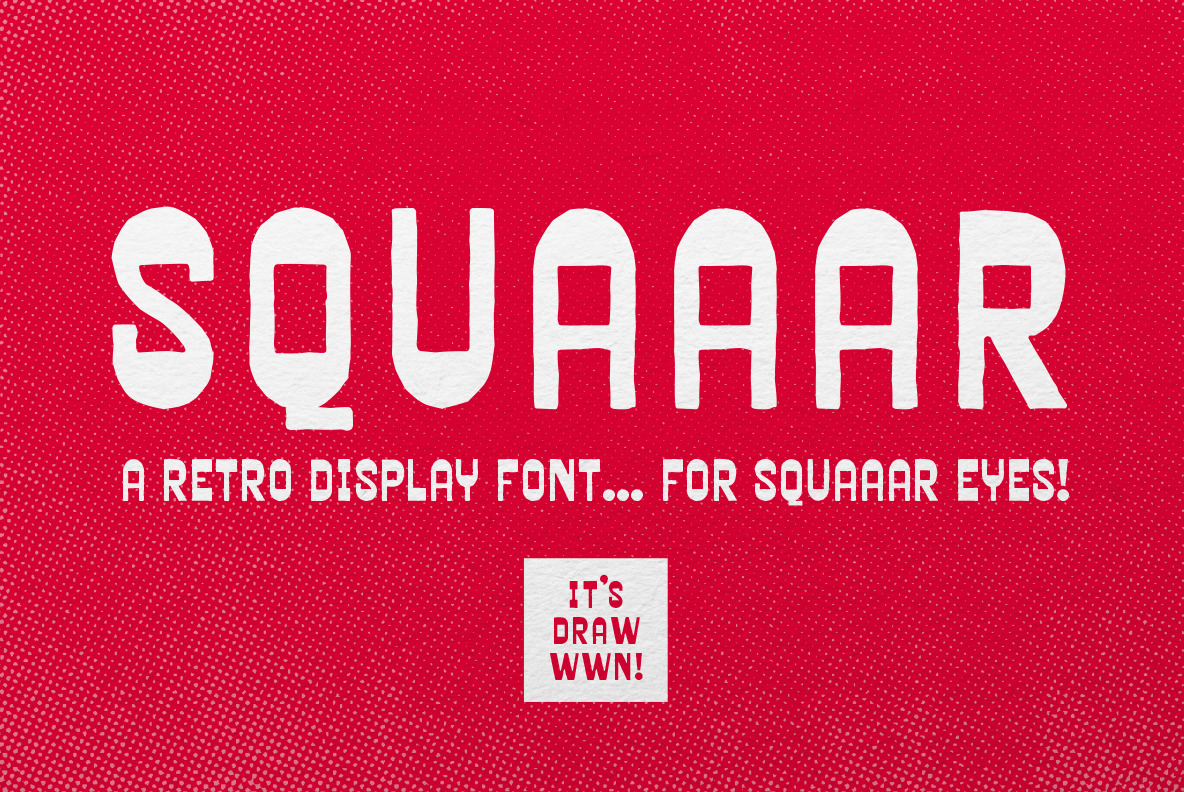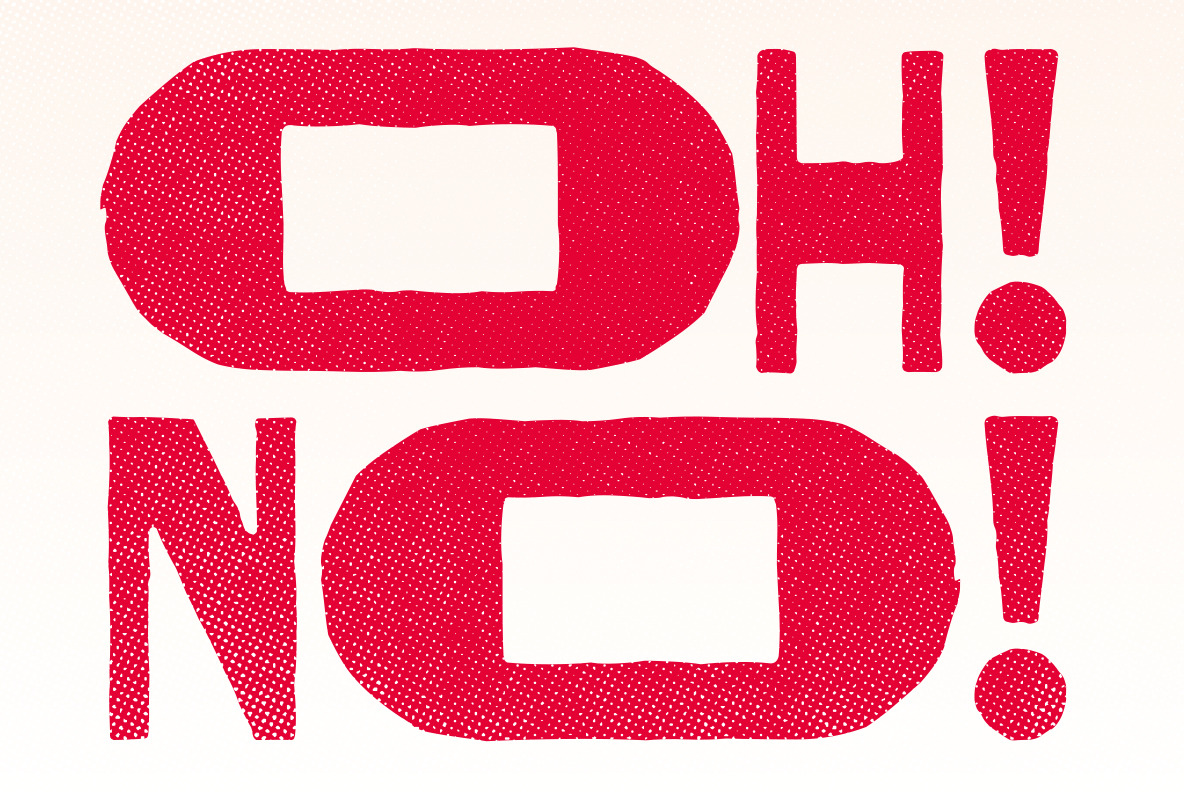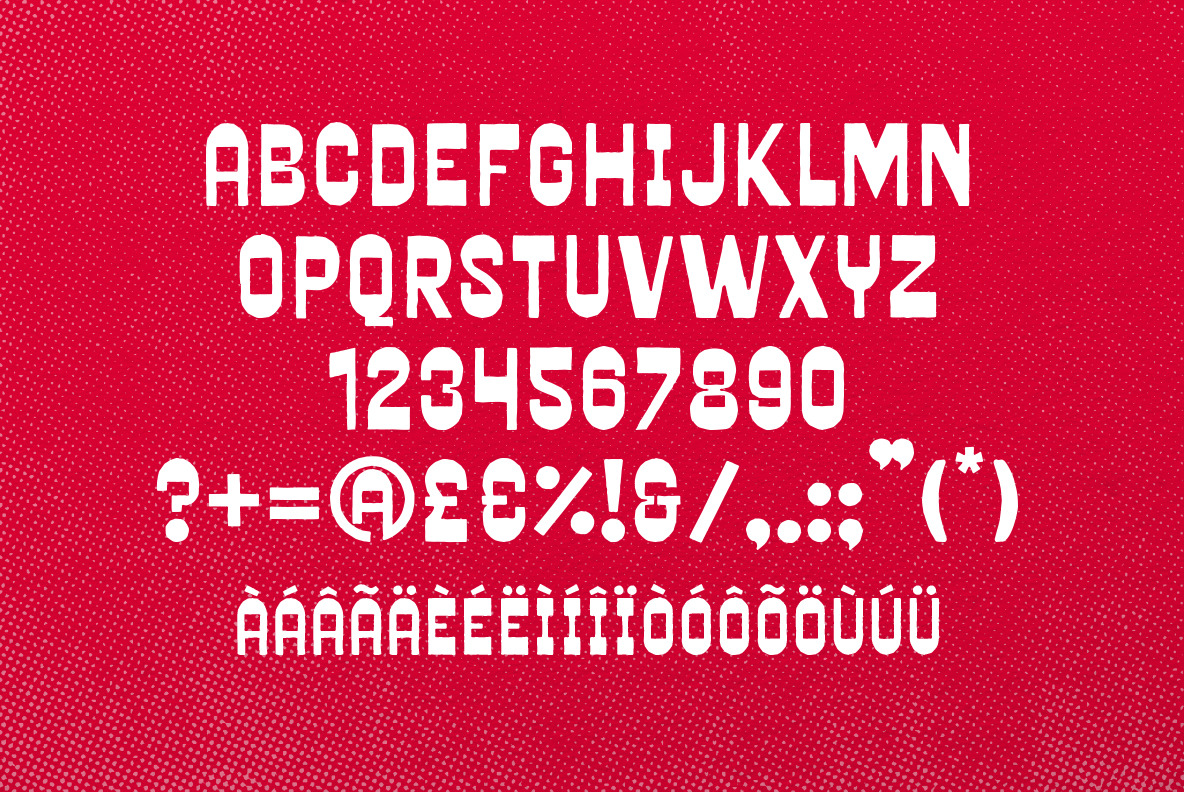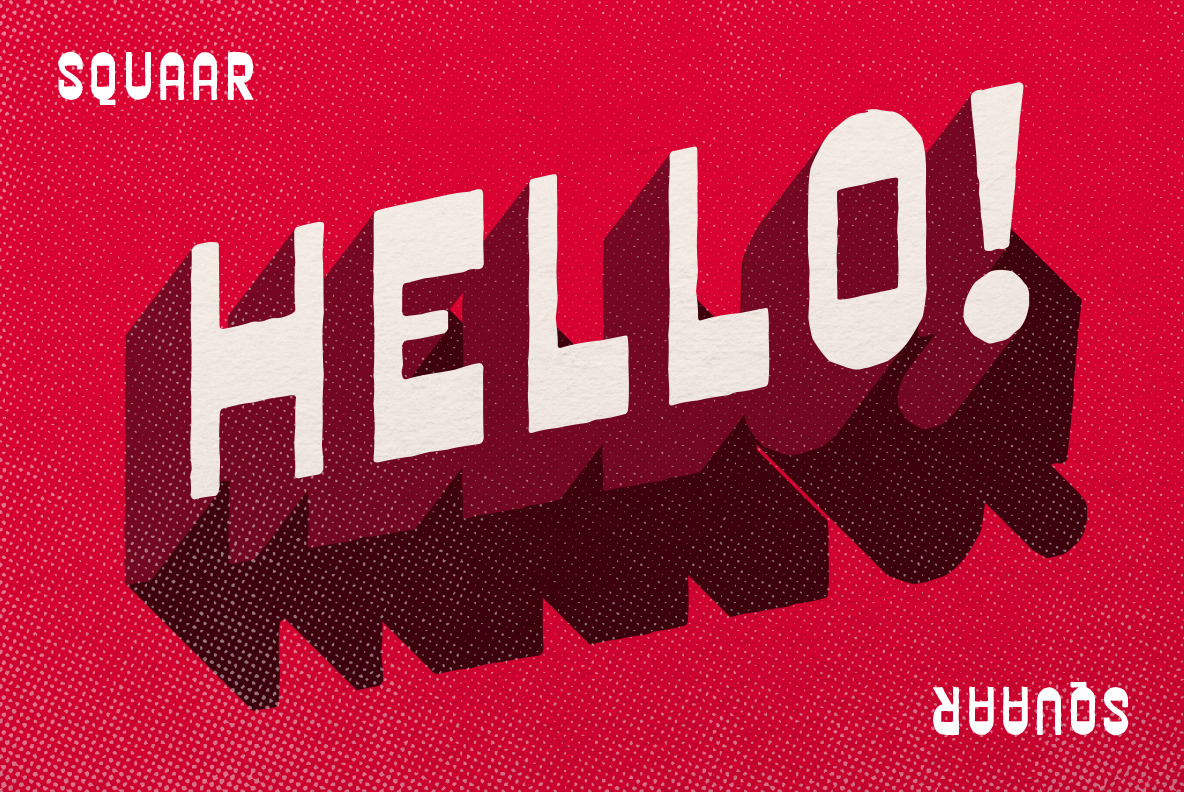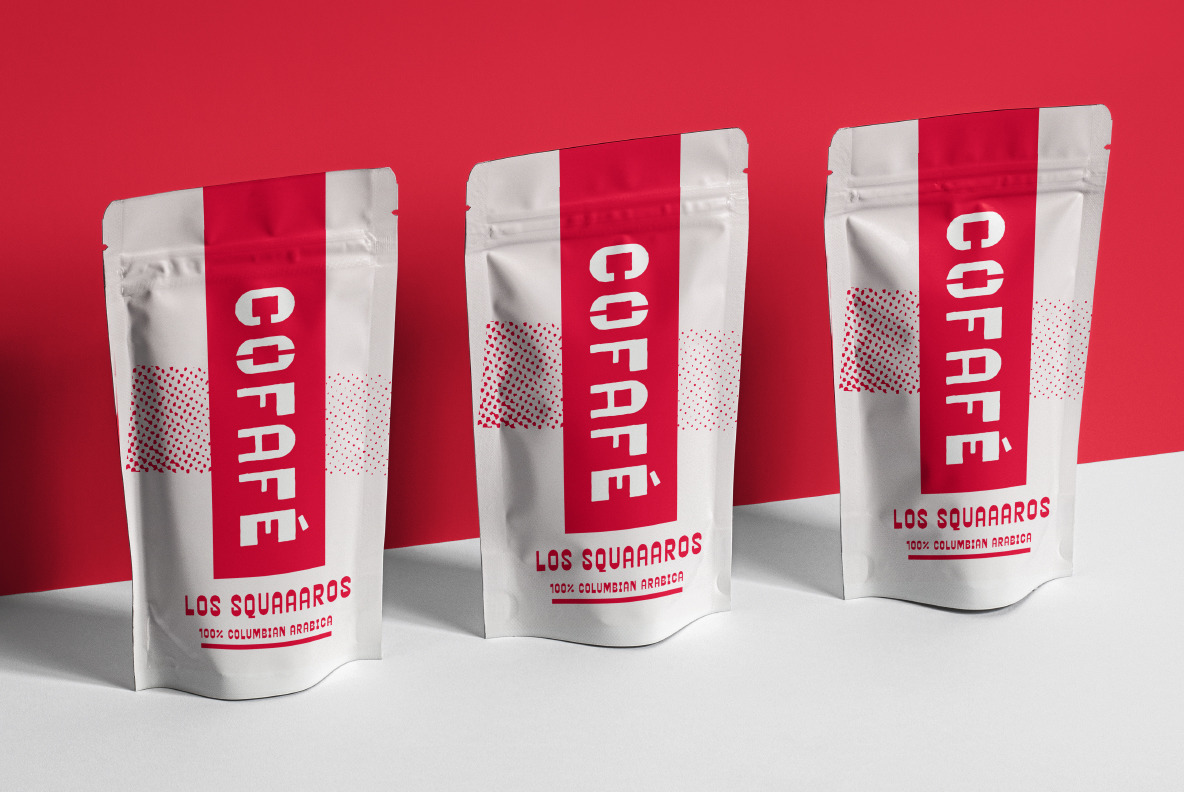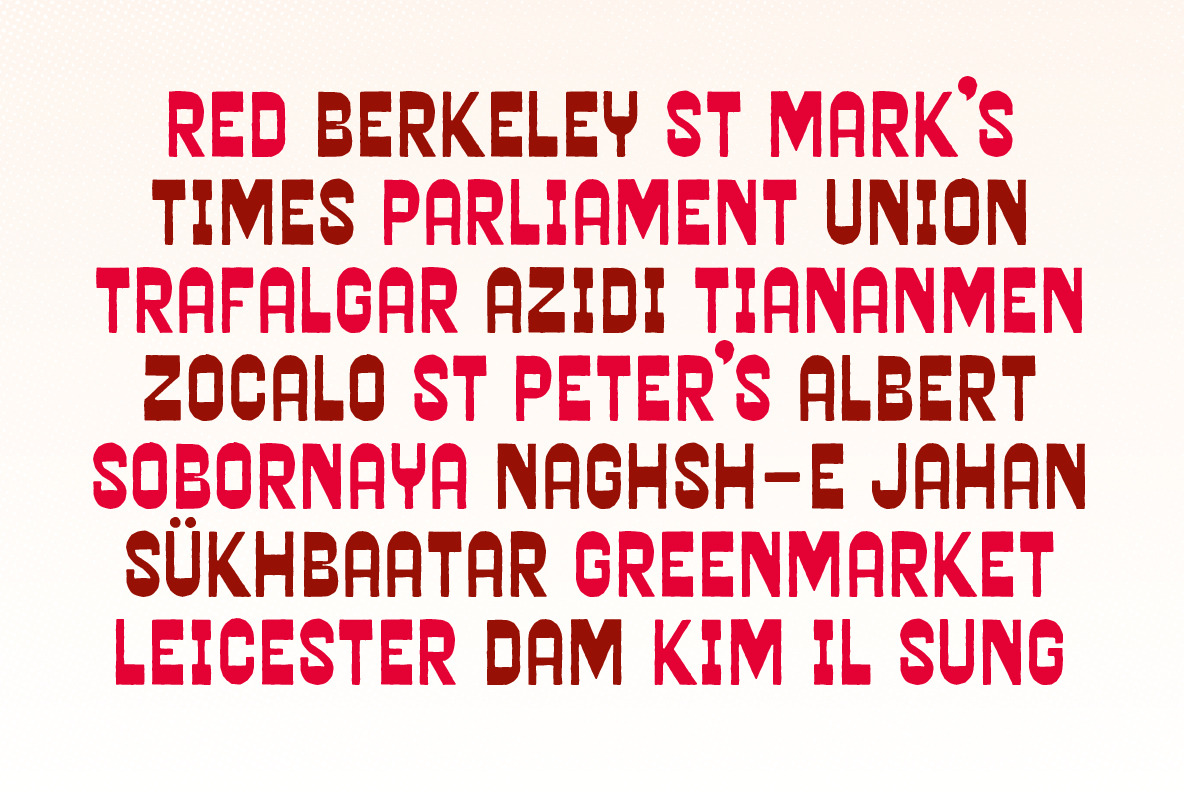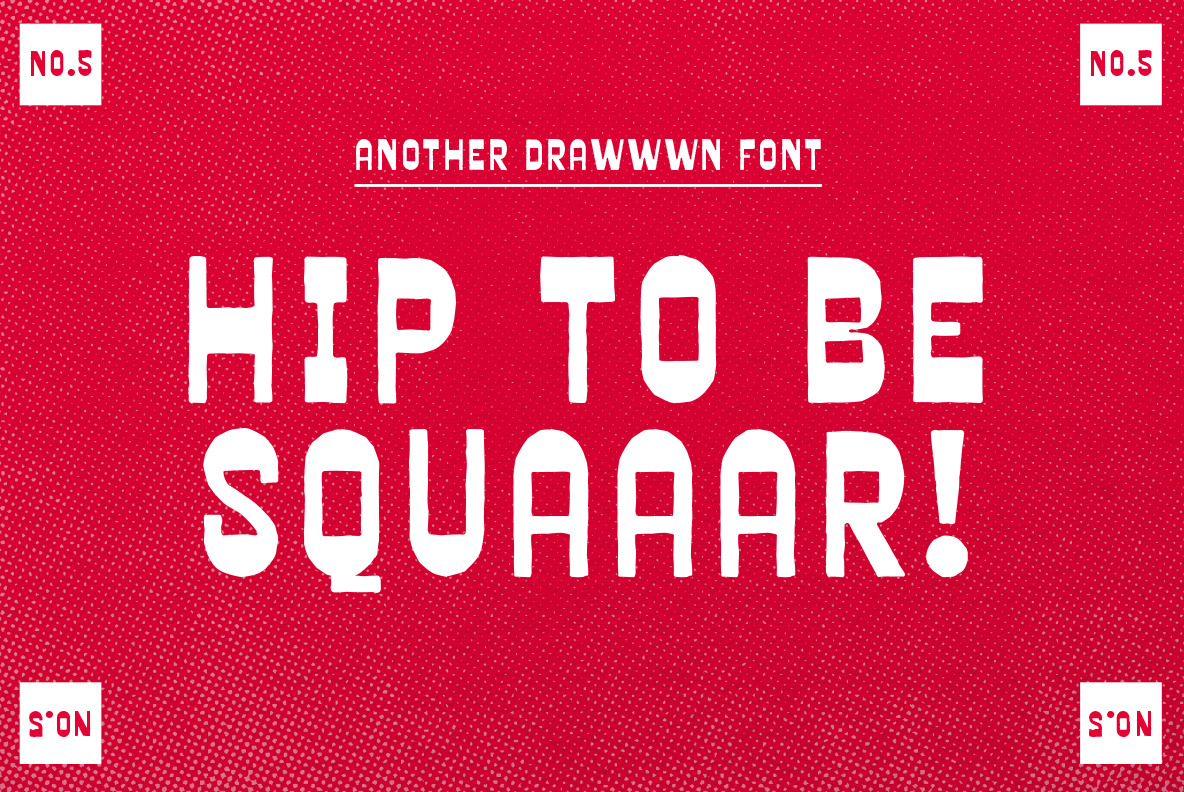
Squaaar Font
Squaaar's a retro font that’s too hip to be square! It's not like the rest - it's a square peg in a round whole wide world. It's perfect to jazz up your jazzy arts café, tszuj up your 'up and coming' start up or chip off the edges of some bland brands. Less arrrrrgh! More Squaaar!